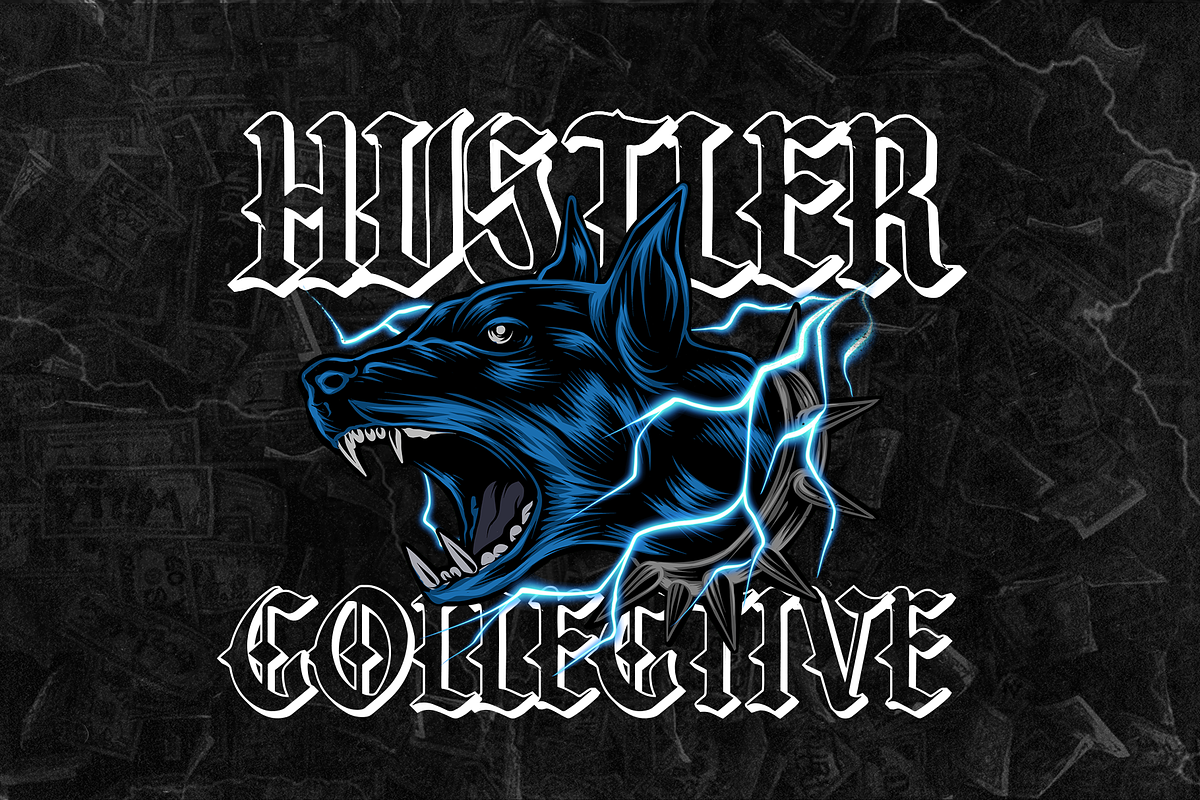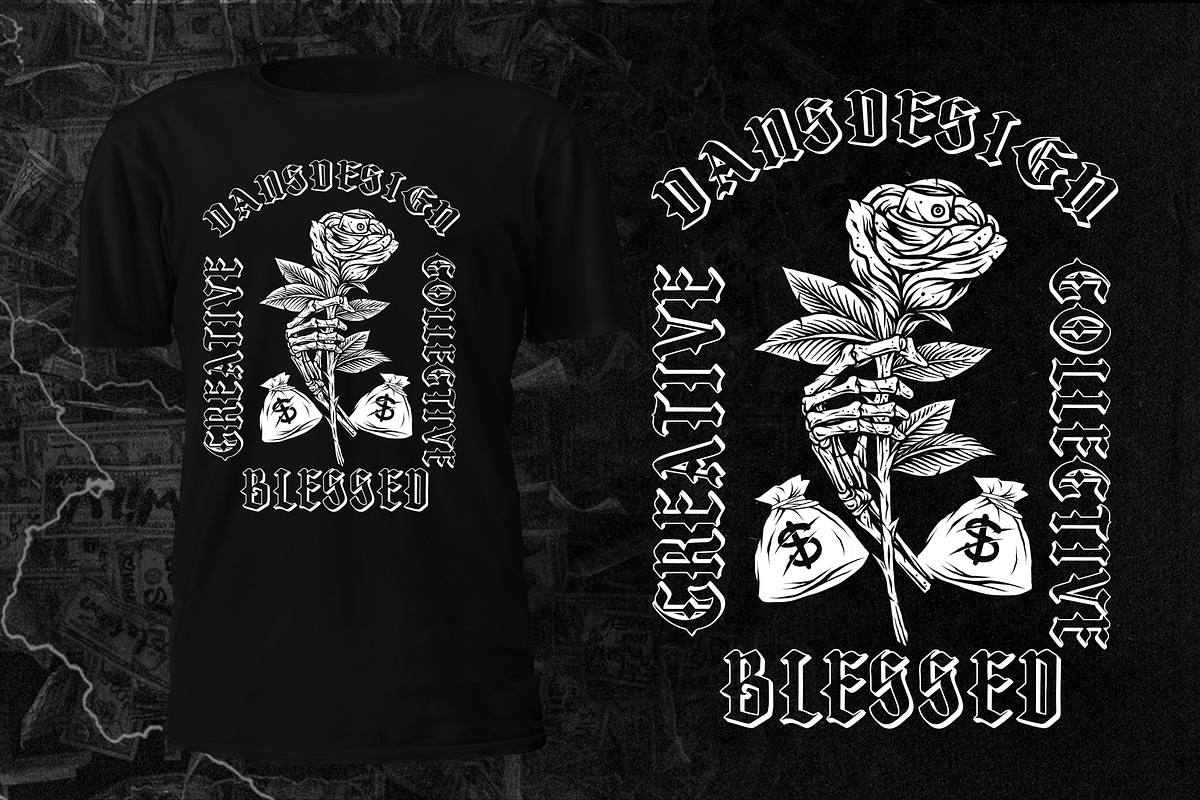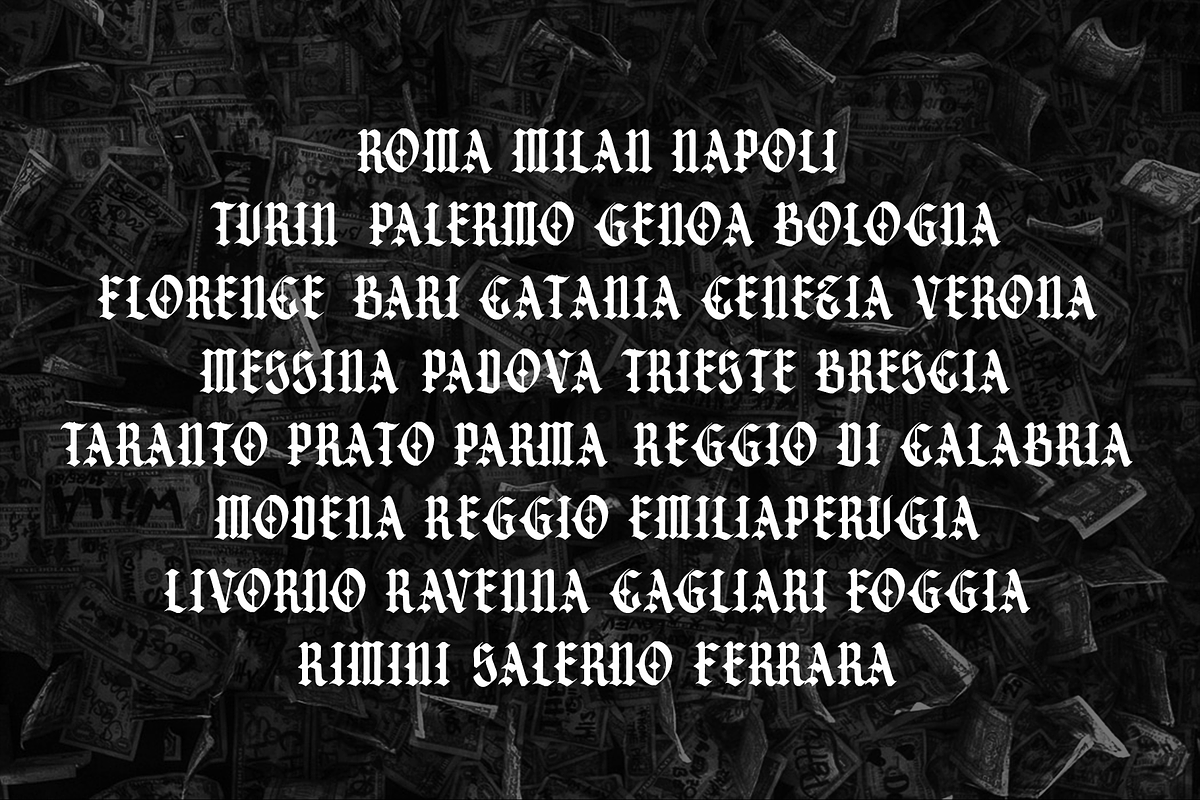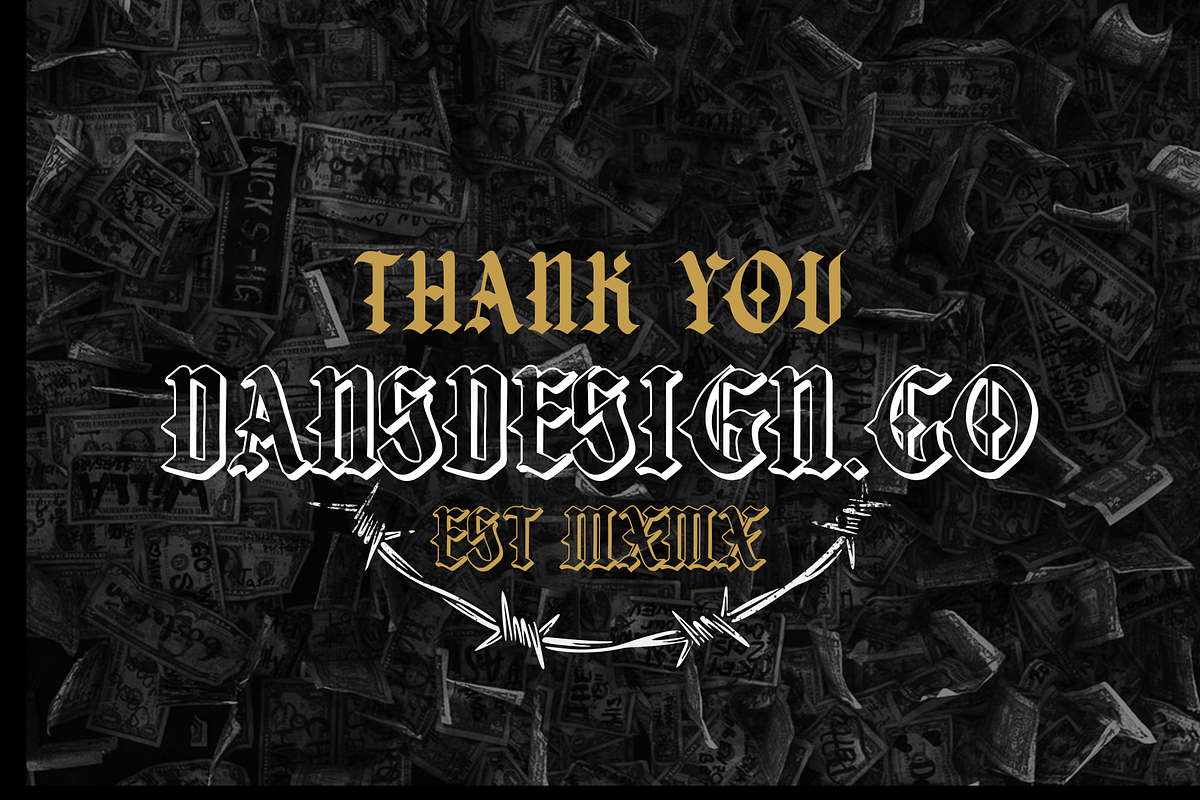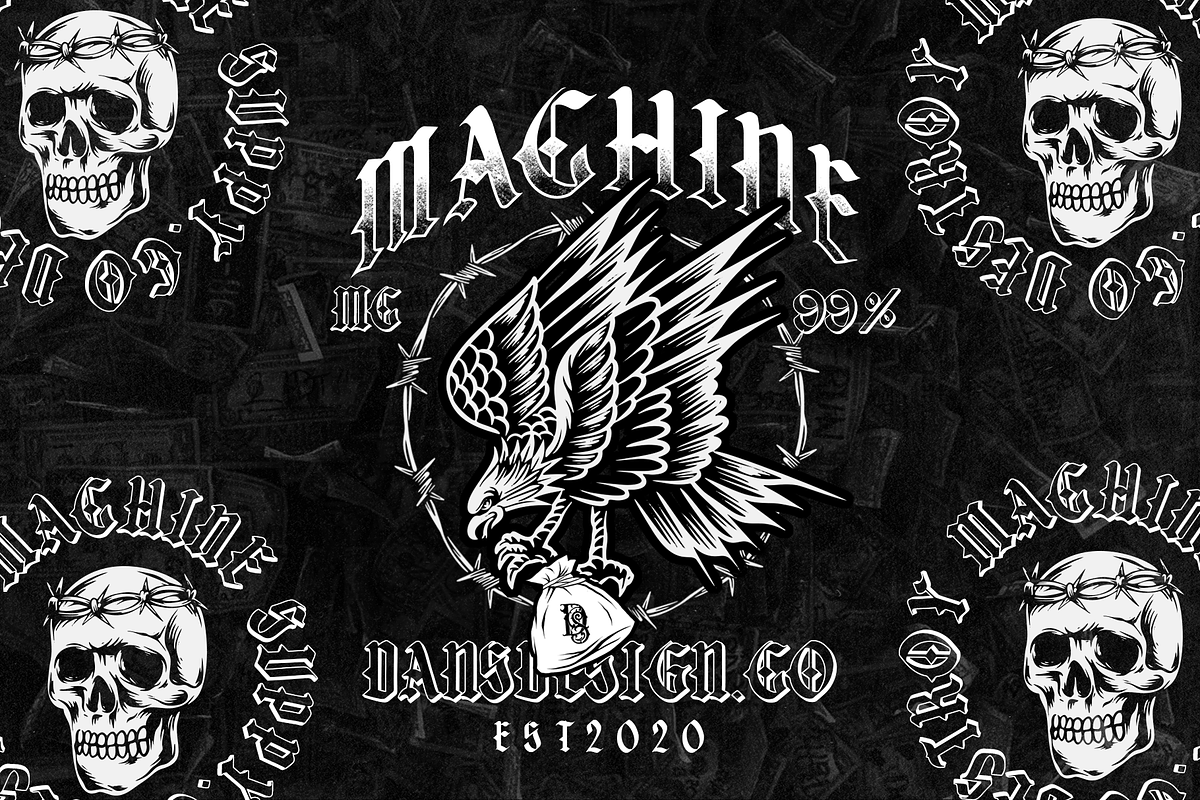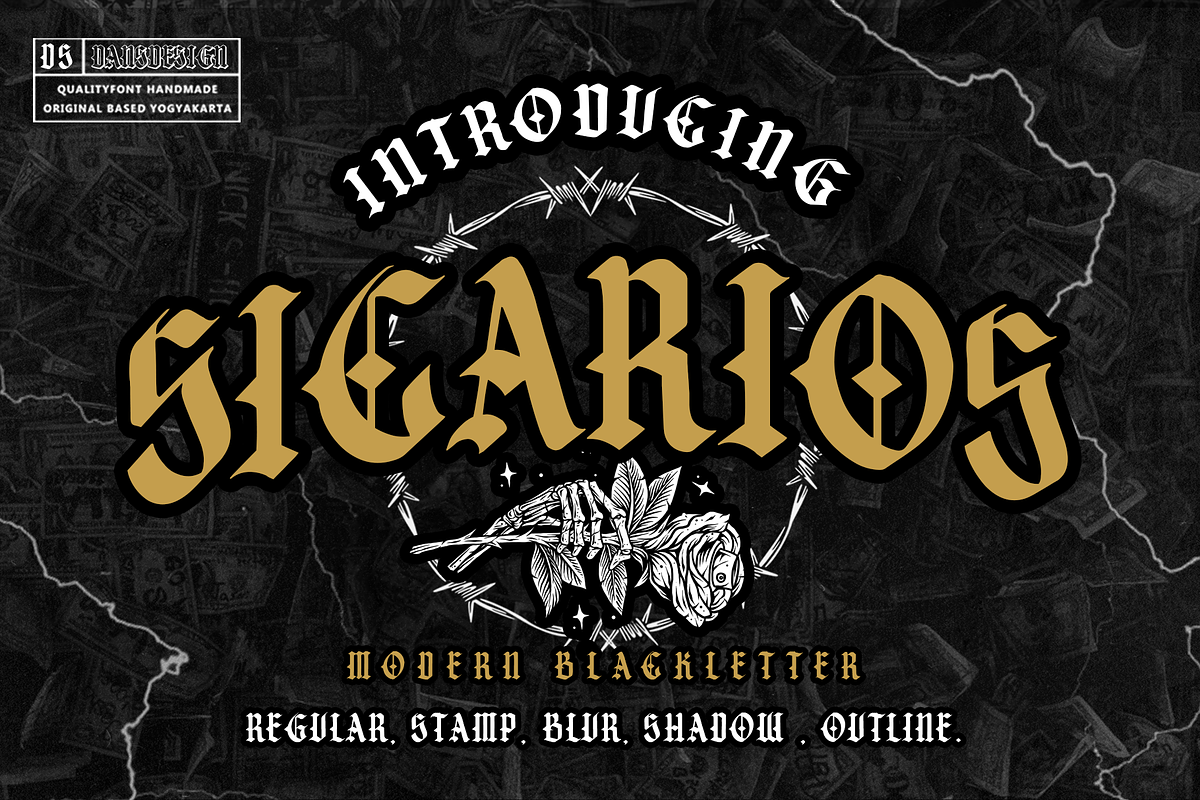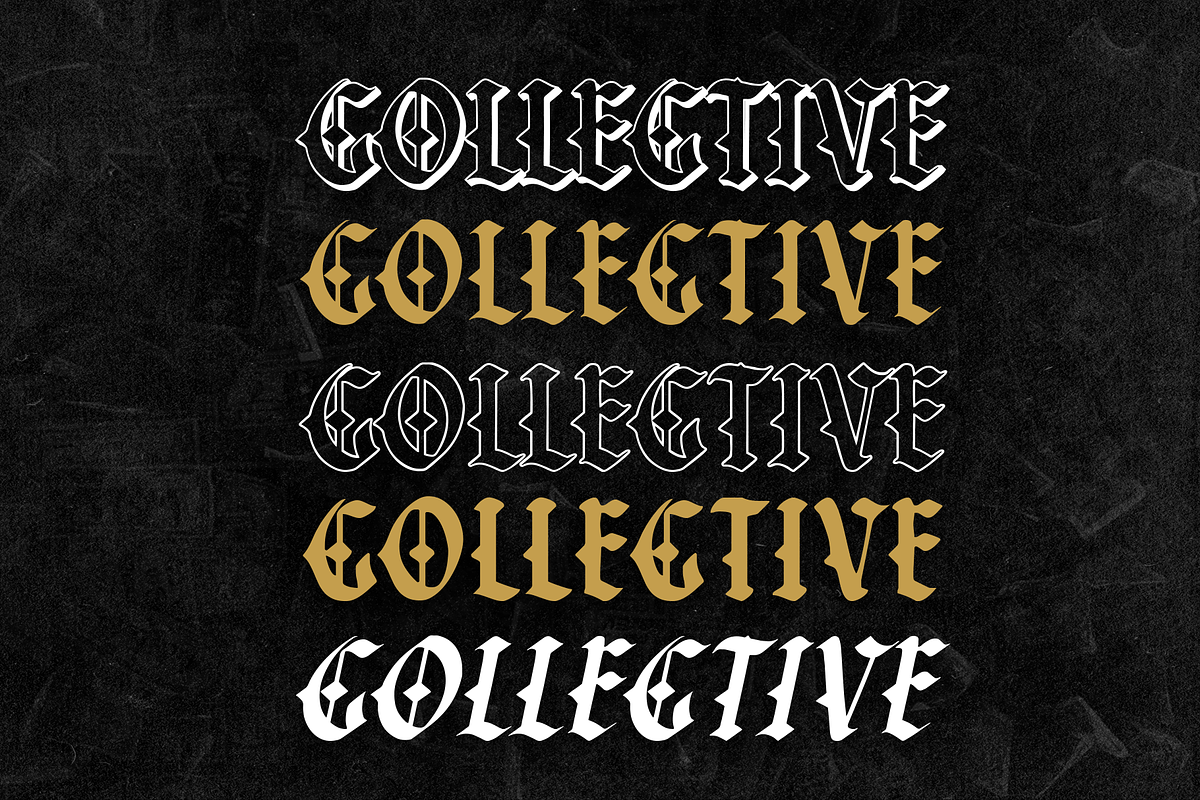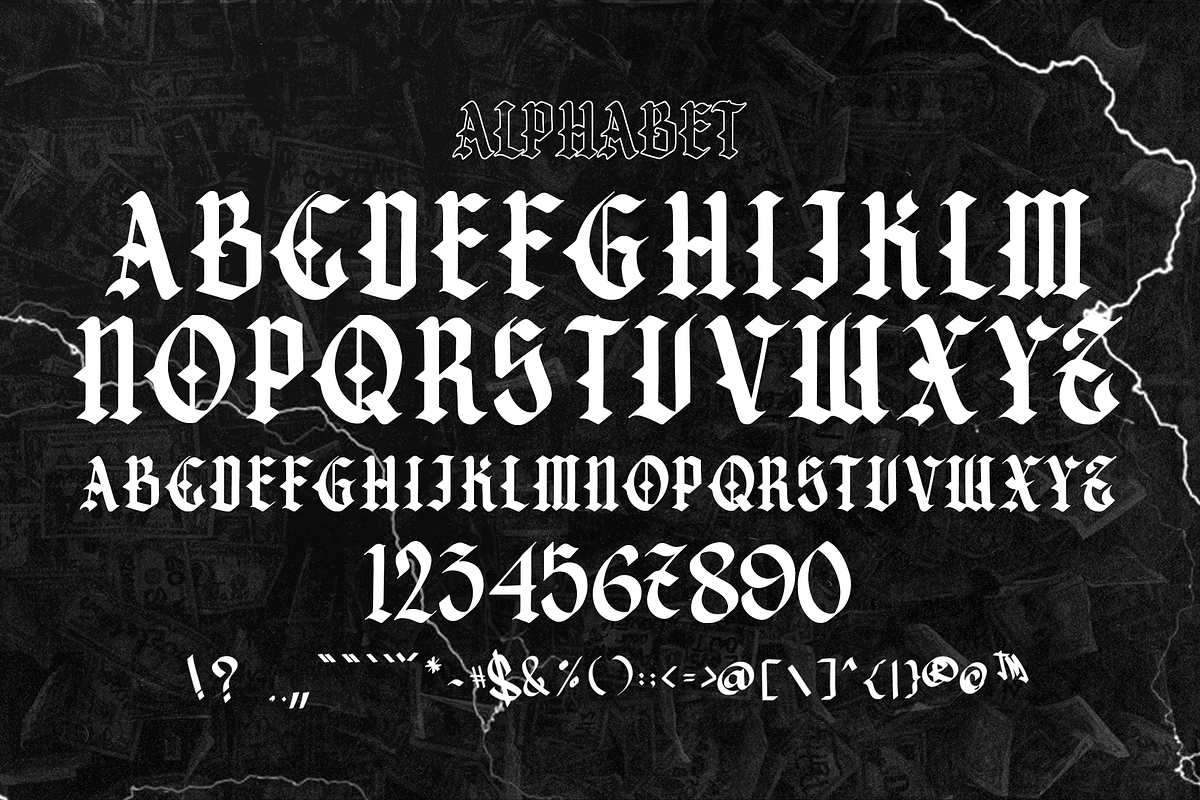
SICARIOS
Dansdesign Proudly present SICARIOS modern blackletter font, This font is made with references to various letters that I combine and design with my style.
SICARIOS are great and usefull for product logo, poster title, headline, packaging, badge, wedding card logo, clothing brand logo, Vintage design and much more
- The SICARIOS regular font
- The SICARIOS slant font
- The SICARIOS outine
- The SICARIOS blur
- The SICARIOS shadow